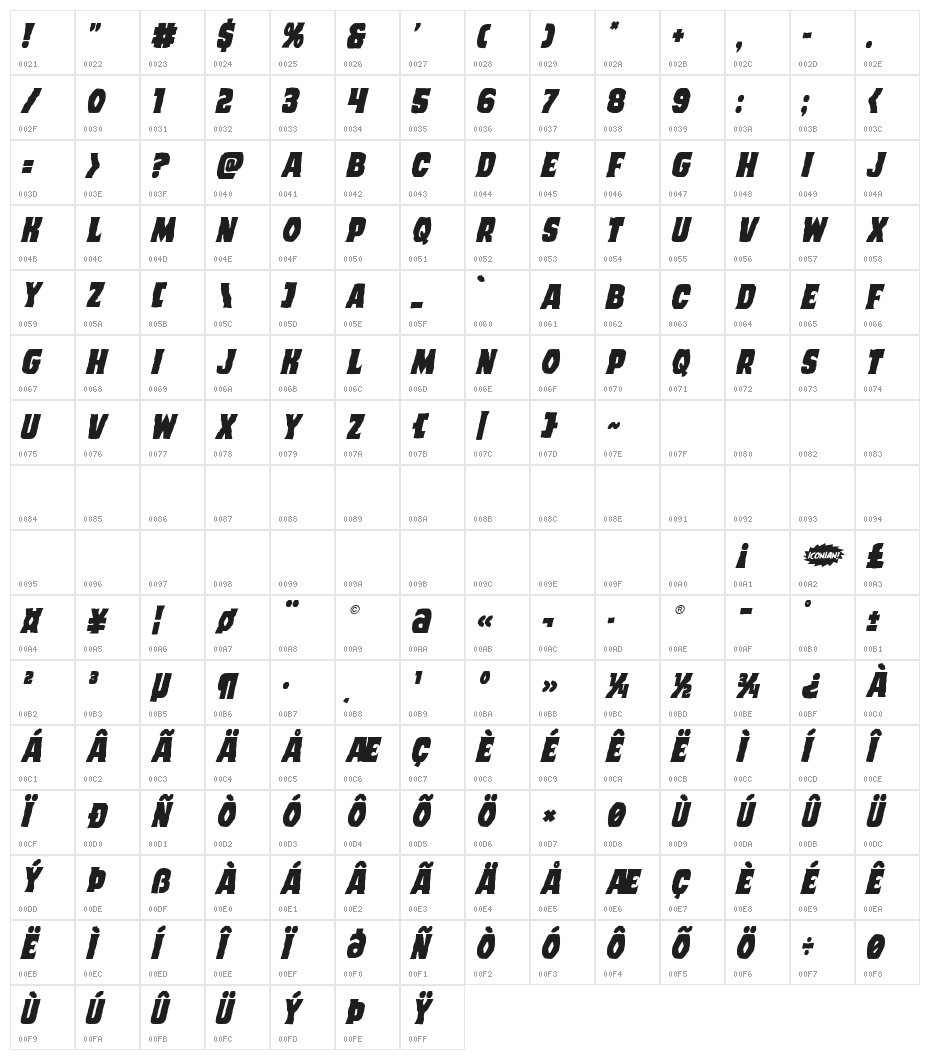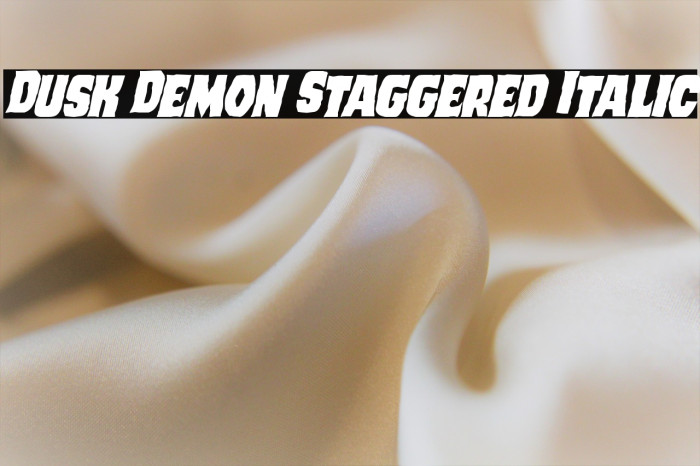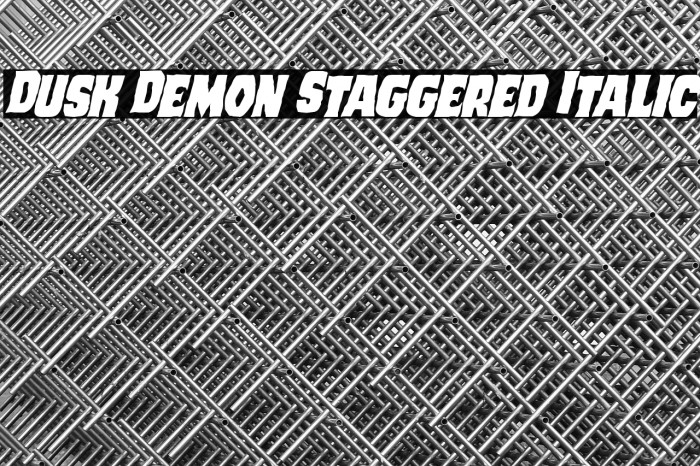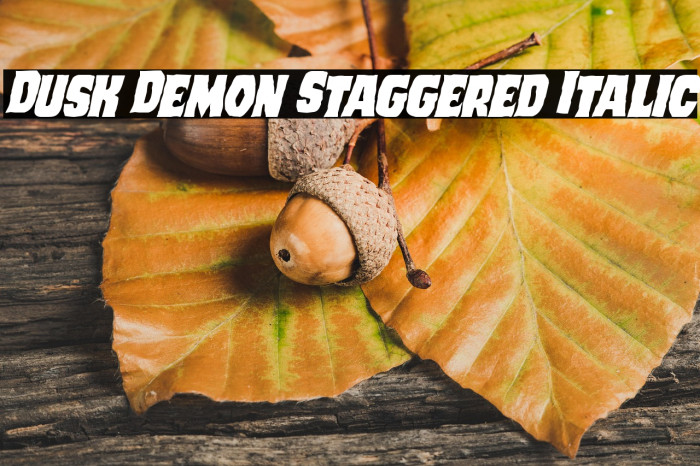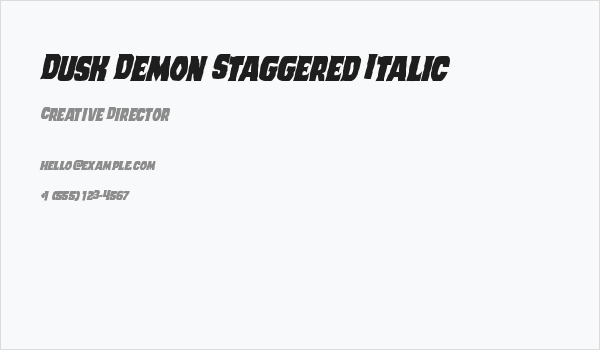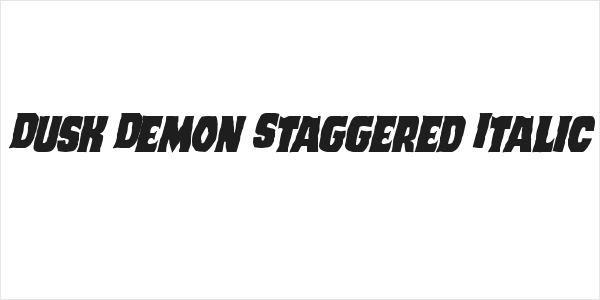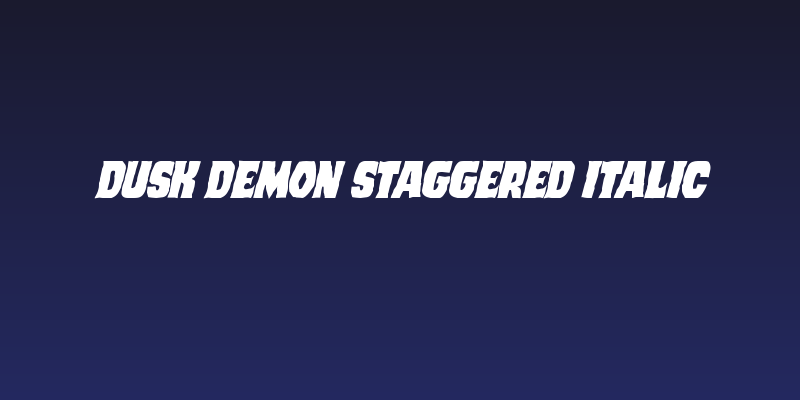
Dusk Demon Staggered Italic Font
Dusk Demon Staggered Italic Description
This font features a bold and dynamic style with a staggered, italicized appearance. The characters are robust and heavily weighted, giving a sense of power and movement. The strokes are thick and consistent, with sharp angles and a slightly condensed form that enhances its dramatic flair. The uppercase and lowercase letters maintain a cohesive design, while the numbers and special characters integrate seamlessly with the overall aesthetic. This font's unique style makes it stand out, suitable for projects that require a strong visual impact.
| Proposed Projects | Ideal for posters, video game titles, sports branding, and any project needing a bold statement. |